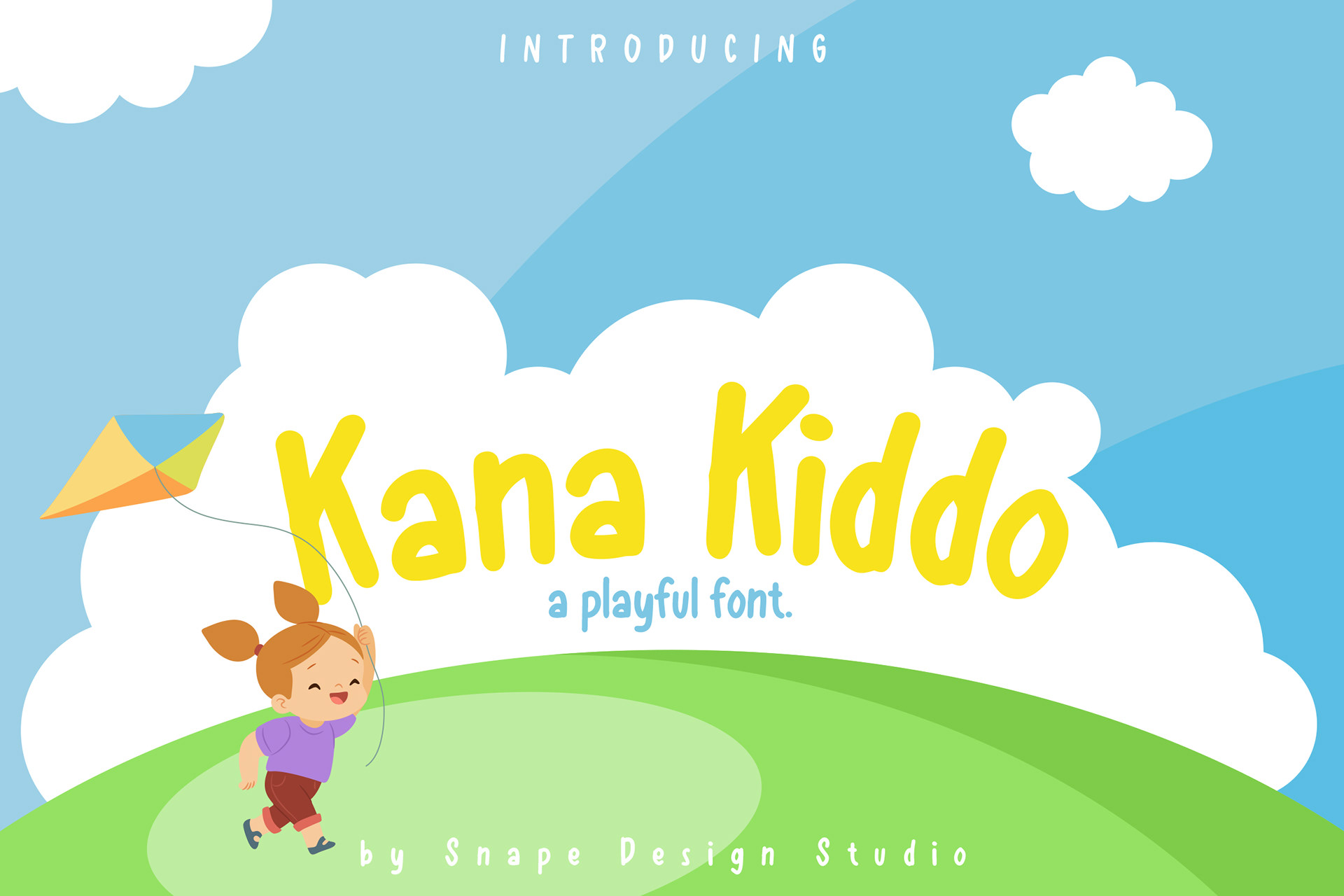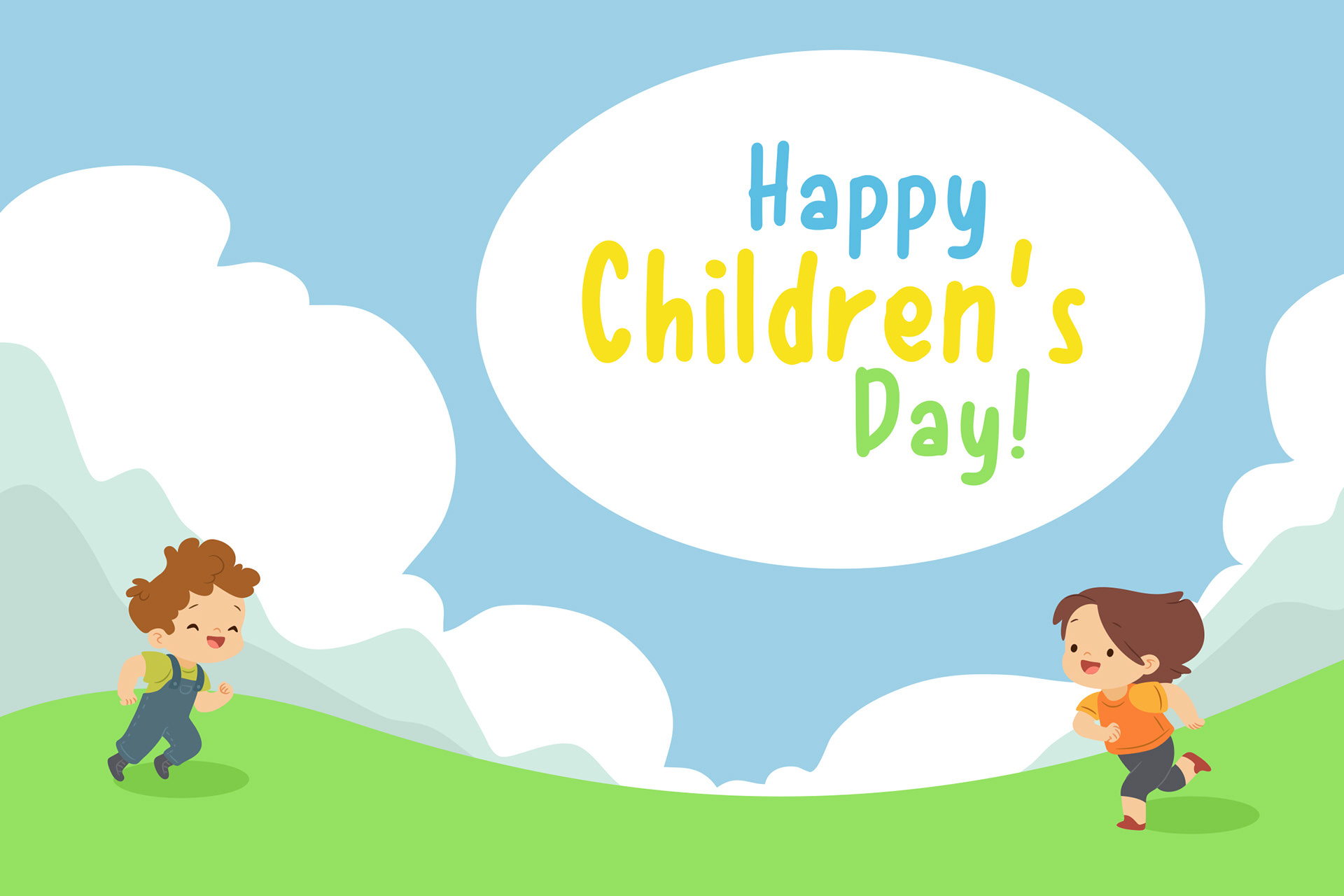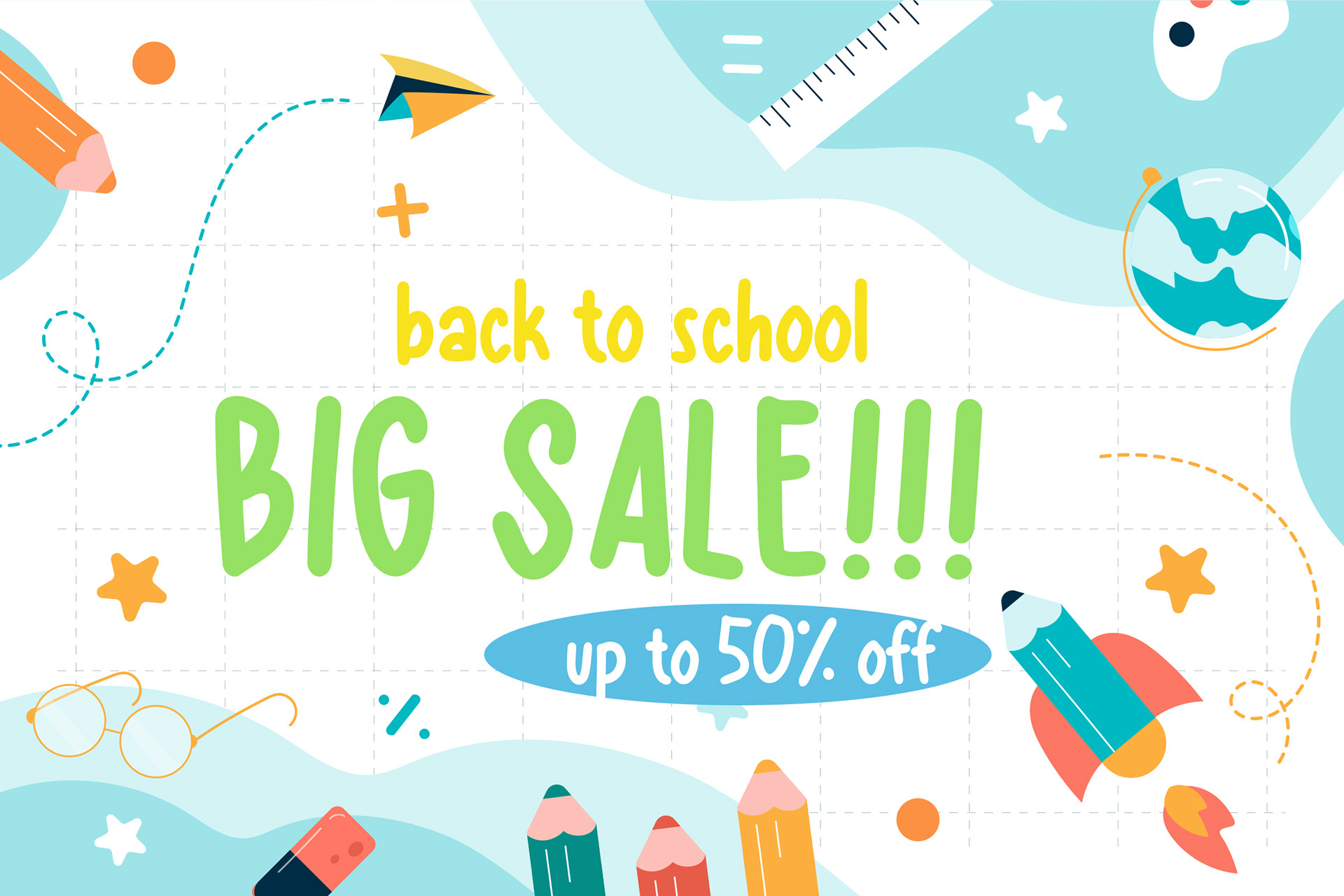
Kana Kiddo is a sweet and a bit quirky handwritten font. Friendly and adept, this font will brighten up each of your school or children projects! Suitable for fun design theme, movie, documenter, film, logo, poster, book cover, headlines, title and many more projects.